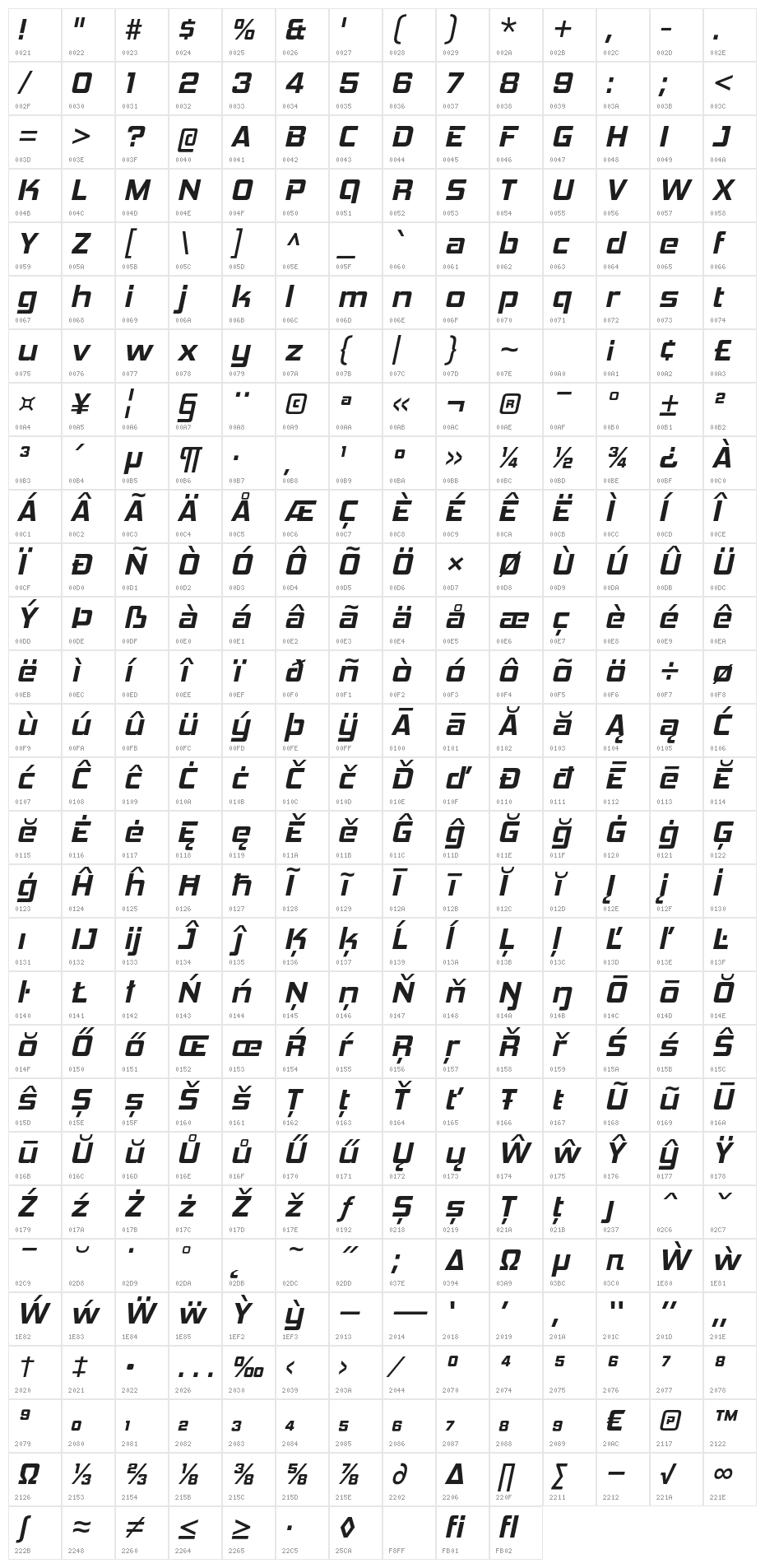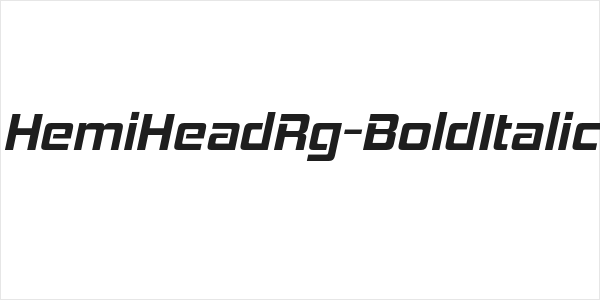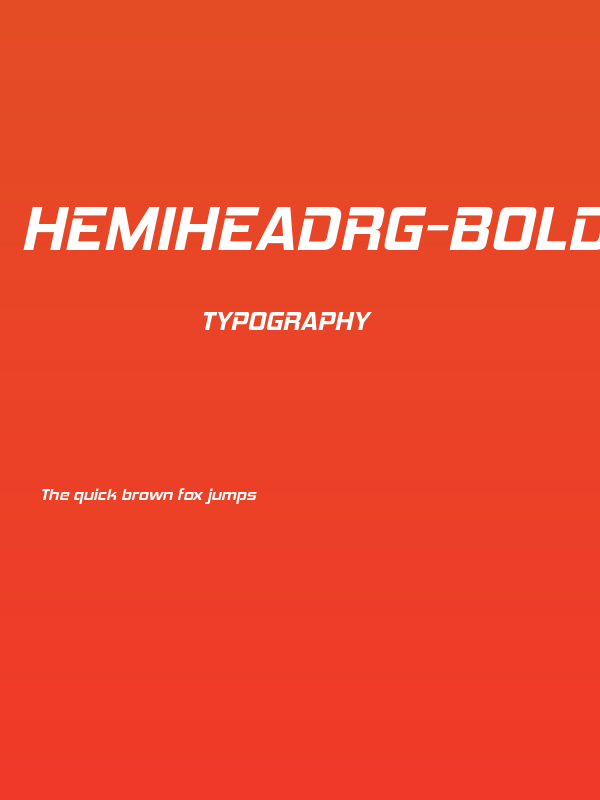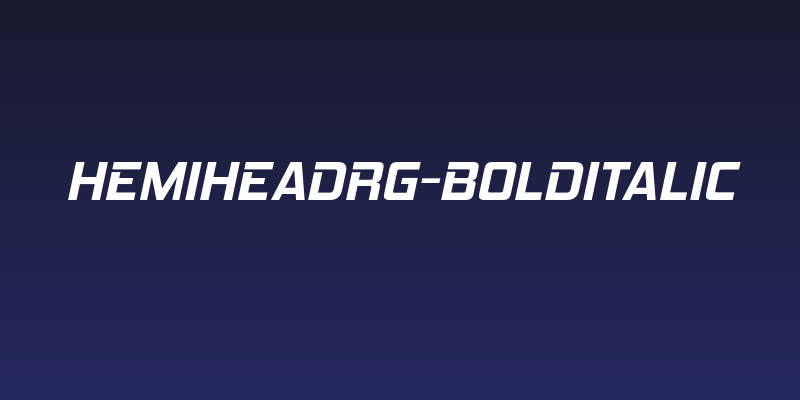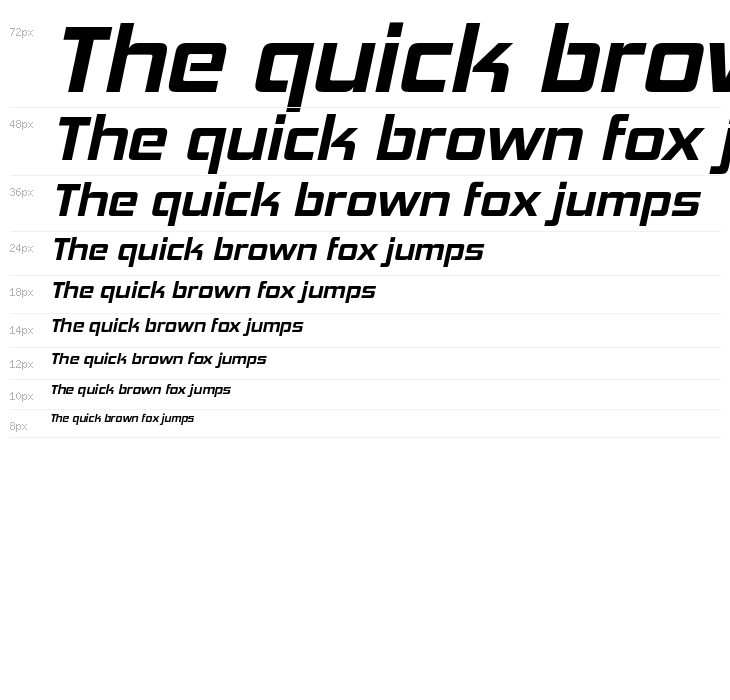
HemiHeadRg-BoldItalic Font
HemiHeadRg-BoldItalic Description
This font features a bold and italicized style with a modern, futuristic aesthetic. The characters are slightly slanted, giving a sense of motion and dynamism. The uppercase and lowercase letters are designed with sharp angles and clean lines, creating a sleek and streamlined appearance. The numerals and special characters maintain this cohesive style, ensuring consistency across all elements. The font's design is highly legible, making it suitable for various applications where clarity and impact are essential.
| Use Case | Logos, Headlines, Advertising |
| Proposed Projects | Ideal for automotive branding, technology logos, sports team merchandise, and dynamic advertising campaigns. |